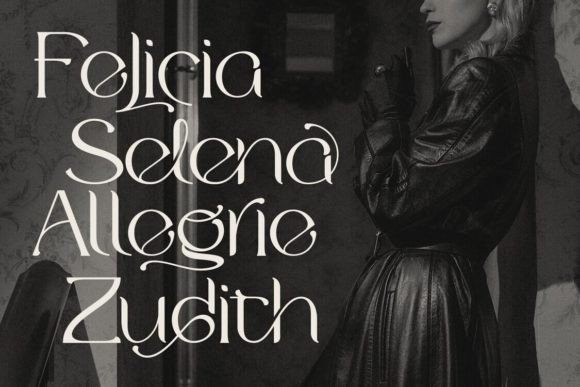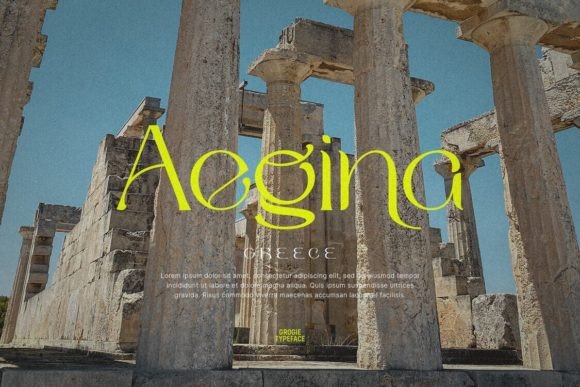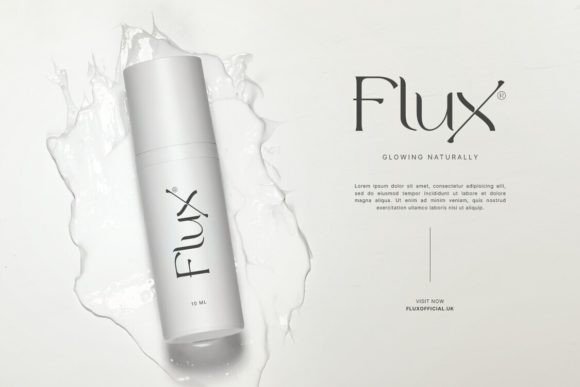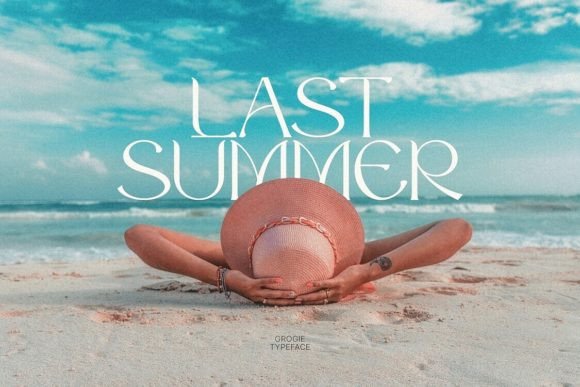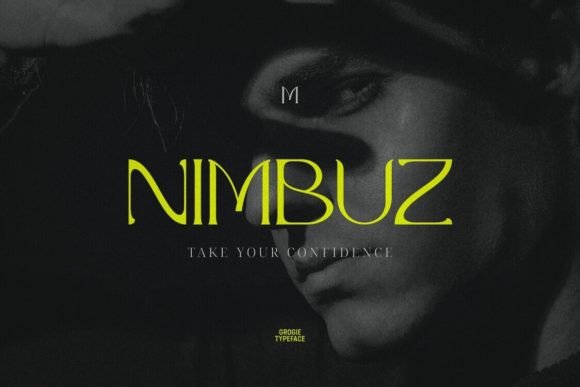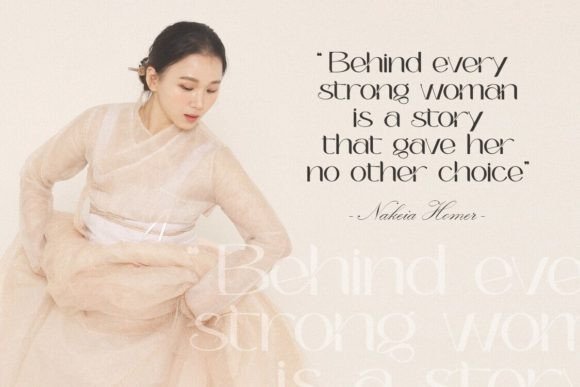
Grogie Font: Elevate Your Design with Modern Serif Elegance
Are you ready to add a touch of sophistication to your design project? Look no further than Grogie, the modern serif font that’s making waves in the design world. With its clean lines and timeless beauty, Grogie is the perfect choice for logos, branding, and marketing materials. In this article, we’ll explore the features and benefits of Grogie, and why you should consider it for your next design project.
The Beauty of Grogie
Grogie is a modern serif font that exudes elegance and refinement. Its clean lines and classic proportions make it an excellent choice for designs that require a touch of sophistication. Whether you’re working on a logo, brochure, or social media promotion, Grogie is sure to impress. The font’s beauty lies in its versatility, making it suitable for a wide range of applications, from fashion magazines to perfume branding.
Key Features of Grogie
So, what makes Grogie stand out from other fonts? Here are some of its key features:
- Decorative Characters: Grogie boasts a wide range of decorative characters that will add a touch of whimsy to your design.
- Alternative Characters: The font also features a spectacular number of alternative unique characters, giving you plenty of options to experiment with.
- Clean Lines: Grogie’s clean lines and classic proportions make it easy to read and visually appealing.
- Modern Serif: The font’s modern serif design gives it a fresh and contemporary feel.
Why Choose Grogie?
With so many fonts available, why should you choose Grogie for your next design project? Here are just a few reasons:
- Elegance: Grogie adds a touch of elegance to any design, making it perfect for high-end brands and luxury products.
- Versatility: The font’s versatility makes it suitable for a wide range of applications, from logos and branding to marketing materials and social media promotions.
- Timeless Beauty: Grogie’s classic proportions and clean lines ensure that it will remain timeless, even as design trends evolve.
Using Grogie in Your Design Projects
So, how can you use Grogie in your design projects? Here are a few ideas:
- Logos: Grogie is perfect for logos that require a touch of sophistication and elegance.
- Branding: Use Grogie to create a consistent brand identity across all your marketing materials.
- Marketing Materials: Grogie is ideal for brochures, flyers, and other marketing materials that require a touch of class.
- Social Media Promotions: Use Grogie to create eye-catching social media promotions that will grab your audience’s attention.
In conclusion, Grogie is a modern serif font that is sure to elevate your design projects. With its clean lines, timeless beauty, and versatility, Grogie is perfect for logos, branding, and marketing materials. Whether you’re a designer or crafter, Grogie is a great choice for anyone looking to add a touch of elegance to their design. So why wait? Choose Grogie for your next design project and experience the power of modern serif elegance.